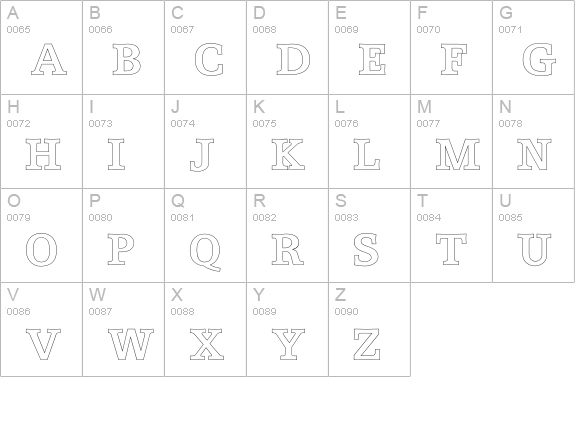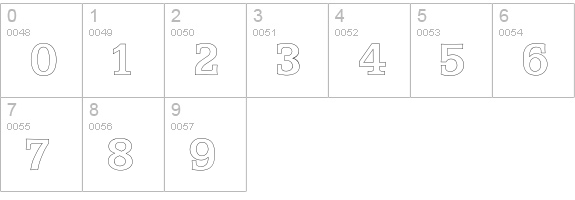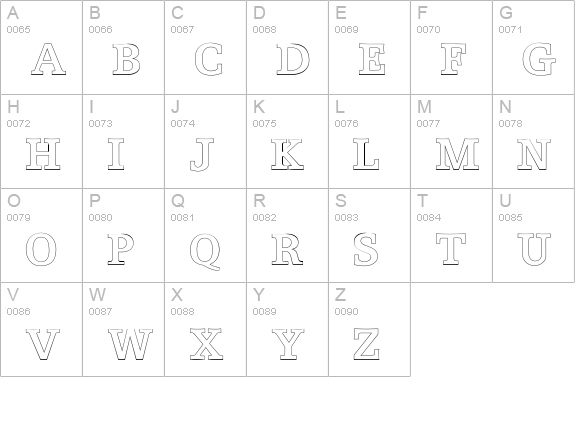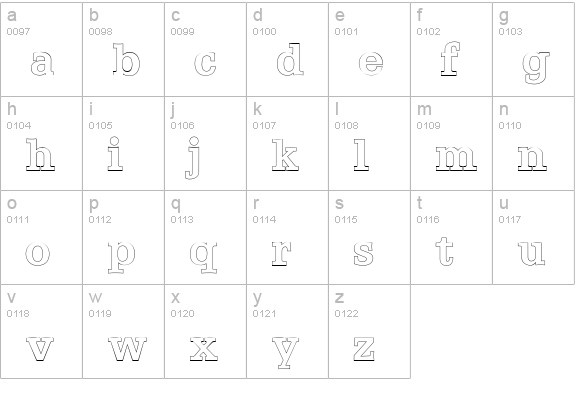
EgyptianOutline Font Details
EgyptianOutline is a striking and versatile font that combines elegance with a touch of ancient Egyptian charm. Its bold and sleek outlines make it perfect for headlines, posters, and other design projects that require a strong visual impact. The clean lines and sharp edges give this font a modern yet timeless feel, making it suitable for a wide range of applications. Best of all, EgyptianOutline is available for free download at FontsMarket.com. Whether you're a designer looking to add a unique touch to your work or a typographer seeking a new addition to your collection, this font is sure to impress. Don't miss out on the opportunity to enhance your designs with the captivating style of EgyptianOutline!